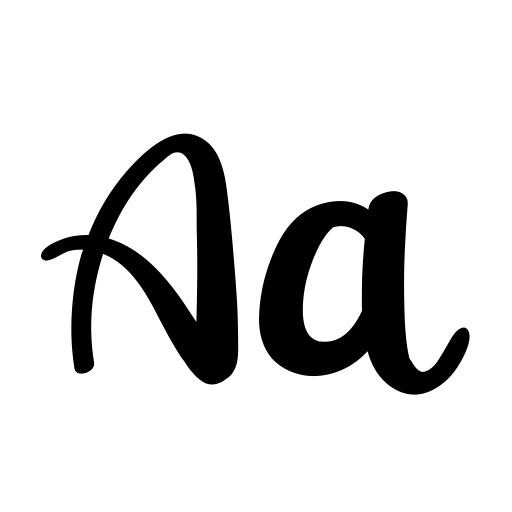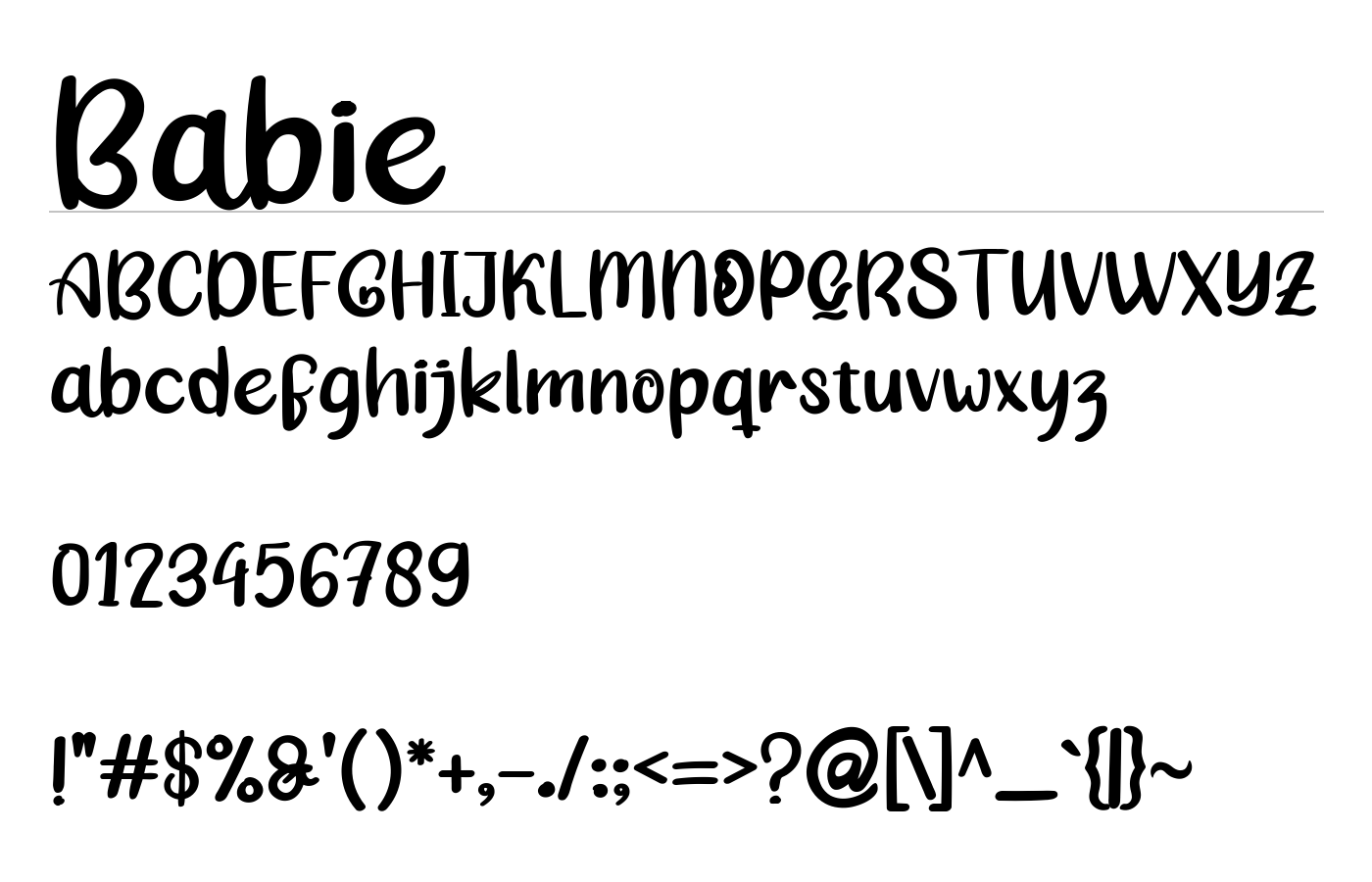
Babie Font is a playful and friendly handwritten script with a casual, rounded style that feels approachable and fun. Its irregular strokes and unique character shapes give it a charming, informal personality, making it ideal for children's books, creative projects, and youthful branding. This font works well in headlines, logos, and packaging where a warm, personal touch is desired.
Babie Font